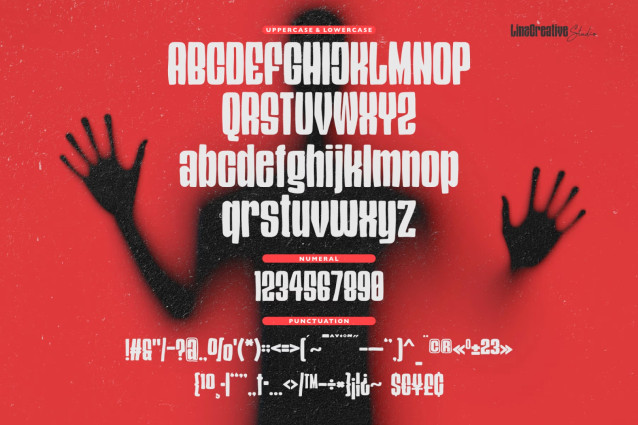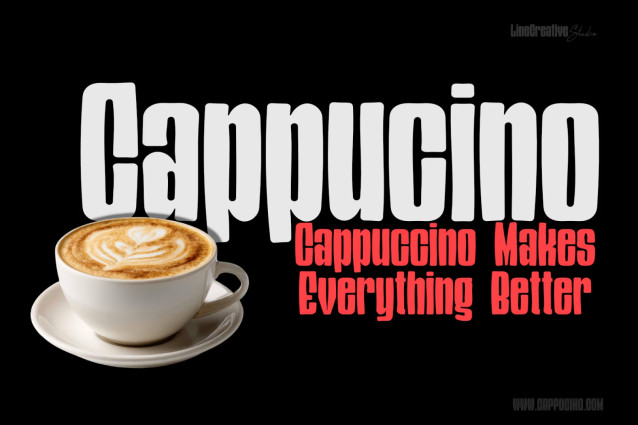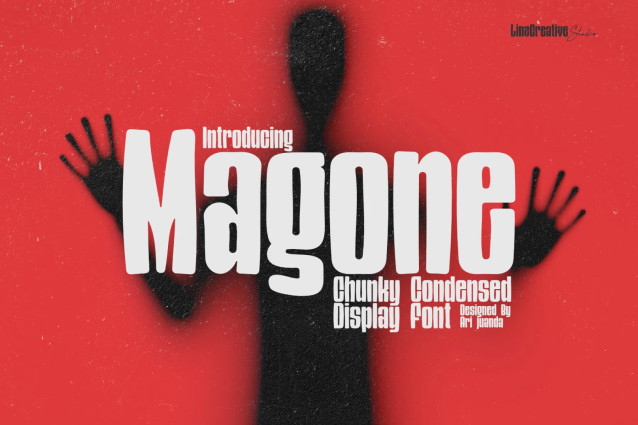
Magone – Condensed Display Font
Magone takes its name from the mahogany tree (mahoni). Just like the wood it’s named after dense, strong, and full of character this typeface was designed to feel solid, bold, and substantial.
This bold condensed display typeface features thick, heavy strokes, soft rounded terminals, and compact counters that give every letter a chunky, substantial feel. The result is a typeface that feels powerful and grounded, yet remains smooth and approachable.
Magone is perfect for projects that need strong visual impact:
• Posters and editorial headlines
• Logo design and branding
• Packaging
• Social media visuals and campaigns